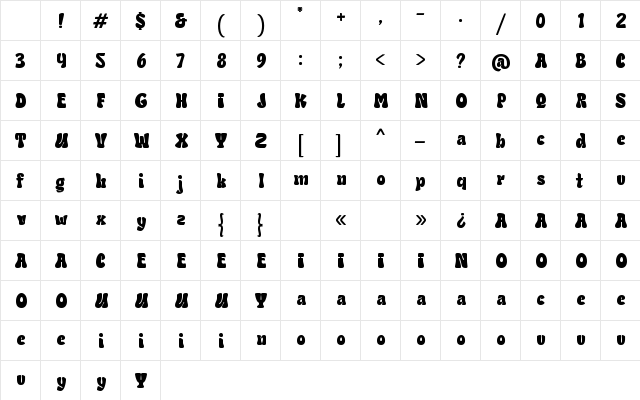
Complete SHROOMS GARDEN Regular glyph index. Displaying only characters natively supported by SHROOMS GARDEN Regular font.
SHROOMS GARDEN is a composed and adaptable typeface that performs quietly and consistently across a wide range of design contexts.